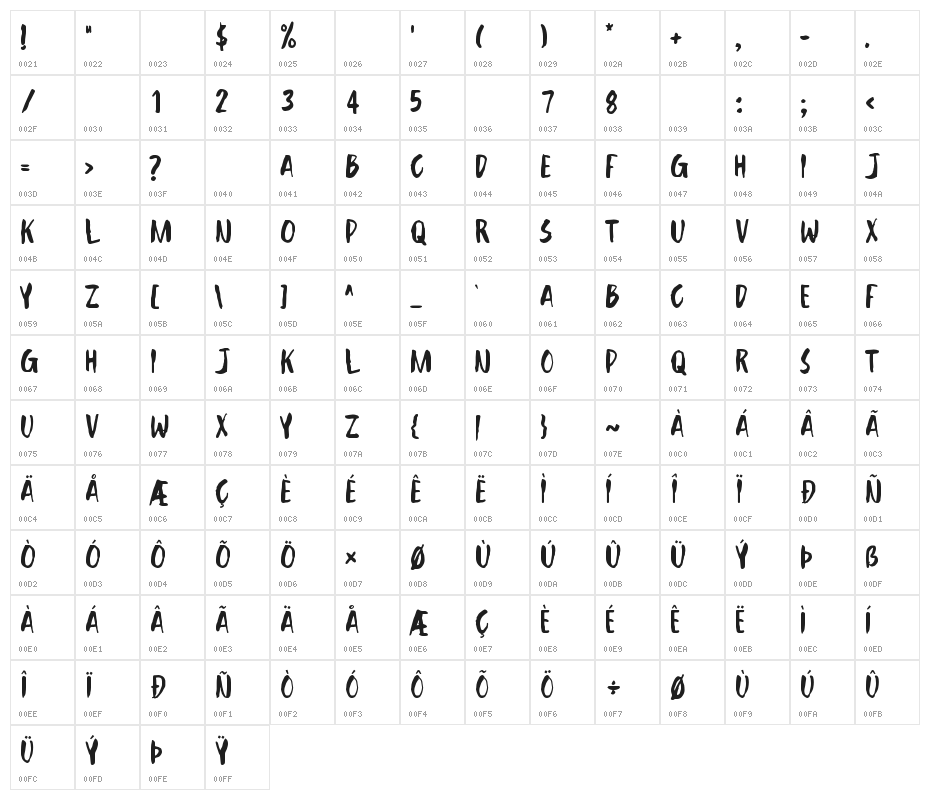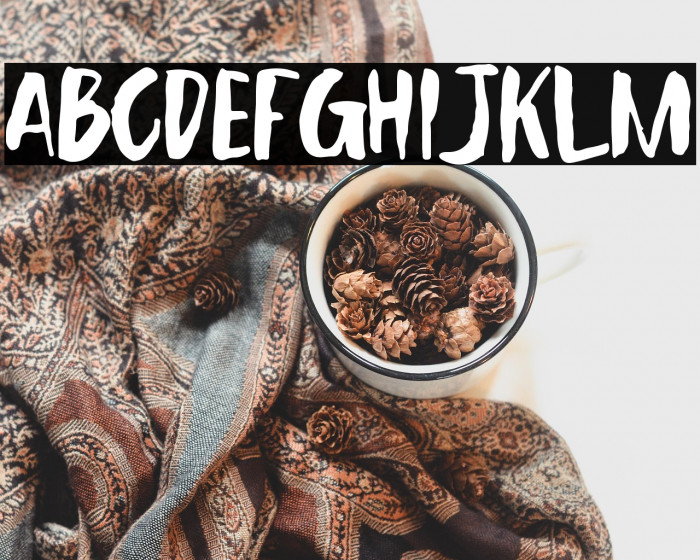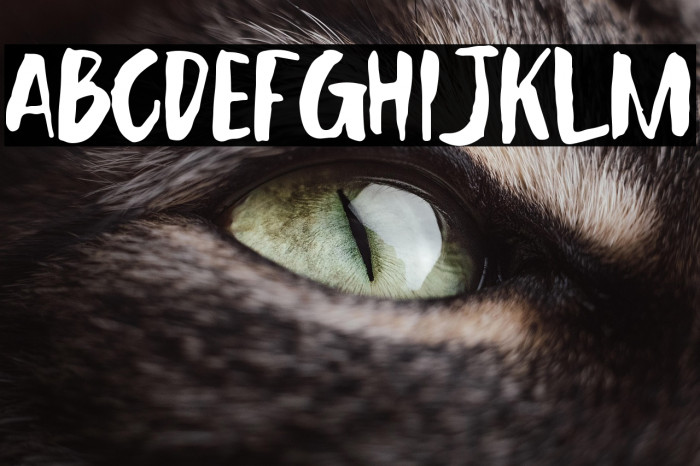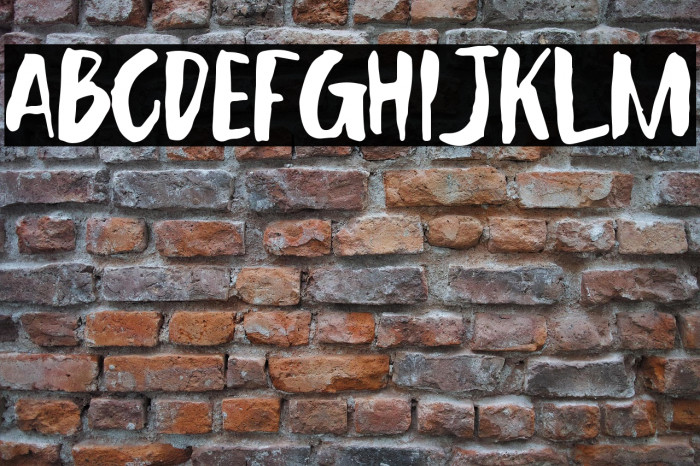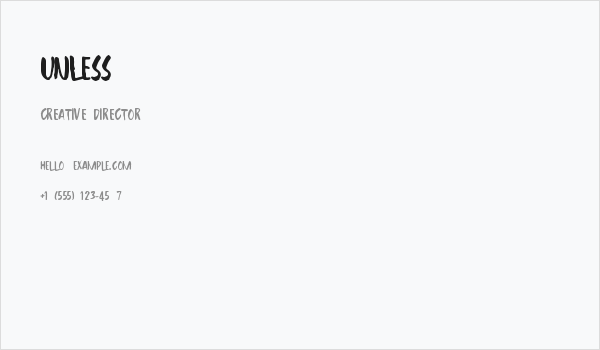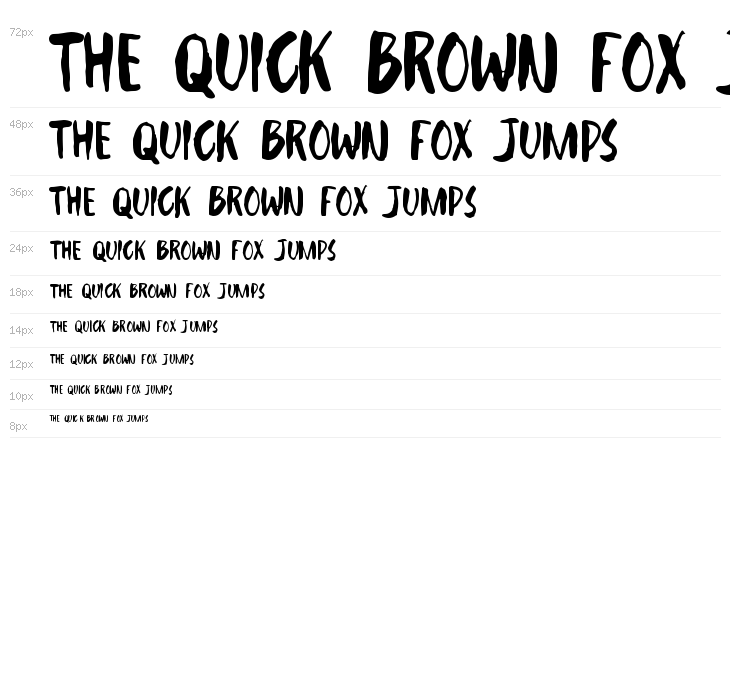
Unless Font
Unless Description
This font features a bold, handwritten style with a playful and energetic appearance. The characters are thick and slightly irregular, giving it a casual and informal feel. The uppercase and lowercase letters maintain a consistent weight, contributing to its cohesive look. The numbers and special characters are equally bold, ensuring readability and uniformity across all glyphs. The font's brush-like strokes add a dynamic and artistic touch, making it suitable for creative and expressive designs.